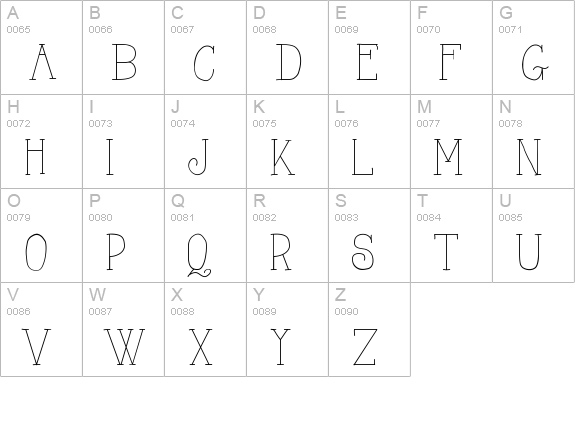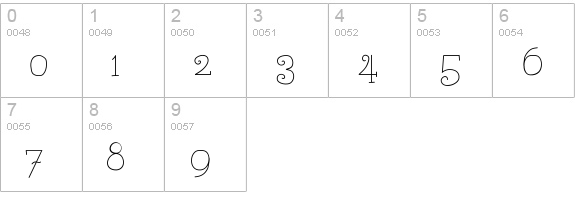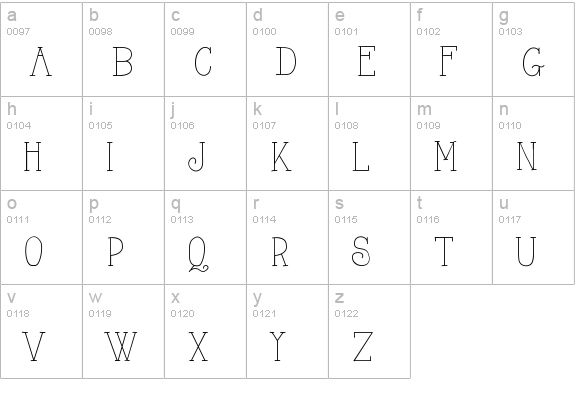
AlwaysHere Font Details
Introducing AlwaysHere, a captivating and versatile font that is bound to leave a lasting impression on your designs. With its clean lines and modern aesthetic, AlwaysHere effortlessly combines elegance and readability, making it the perfect choice for a wide range of design projects. This font's unique letterforms are carefully crafted to ensure maximum legibility, making it ideal for both large headlines and small body text. Whether you're designing a sophisticated logo, creating eye-catching posters, or crafting engaging social media graphics, AlwaysHere will elevate your designs to new heights. One of the best features of AlwaysHere is that it is free. Yes, you read that right - you can download this exceptional font for free at FontsMarket.com. This means that you can enhance your designs without breaking the bank, making it accessible to both professional designers and hobbyists alike. When you download AlwaysHere, you'll also have access to a wide range of weights and styles, allowing you to experiment and play with different variations to find the perfect fit for your project. From the bold and impactful to the subtle and delicate, AlwaysHere has it all. Furthermore, this font is compatible with various design software and platforms, ensuring a seamless integration into your creative workflow. Whether you're a seasoned designer or just starting out, AlwaysHere will make your design process easier and more enjoyable. So why wait? Elevate your design game with AlwaysHere, a stunning font that combines elegance, versatility, and readability. Download it for free at FontsMarket.com and unlock a world of possibilities for your next design project. AlwaysHere is here to stay, always available, and always ready to enhance your creativity.